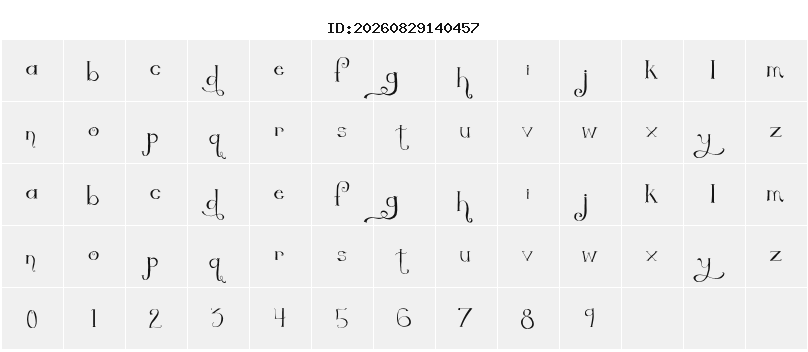
The Quickest Shift Preview
• Font Name: The Quickest Shift
• Full Font Name: TheQuickestShift
• PostScript Name: TheQuickestShift
About The Quickest Shift.otf
The Quickest Shift.otf is a modern, elegant sans-serif font designed for ultimate readability and visual harmony. Perfect for branding, headlines, web design, and print materials.